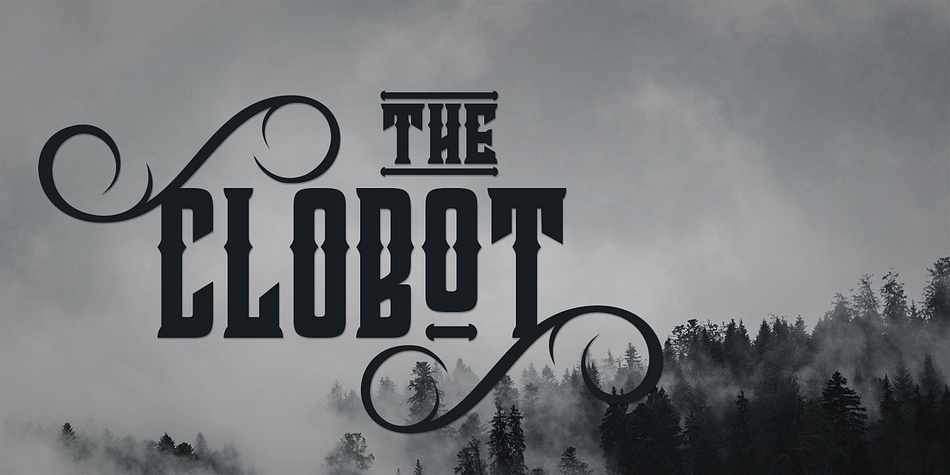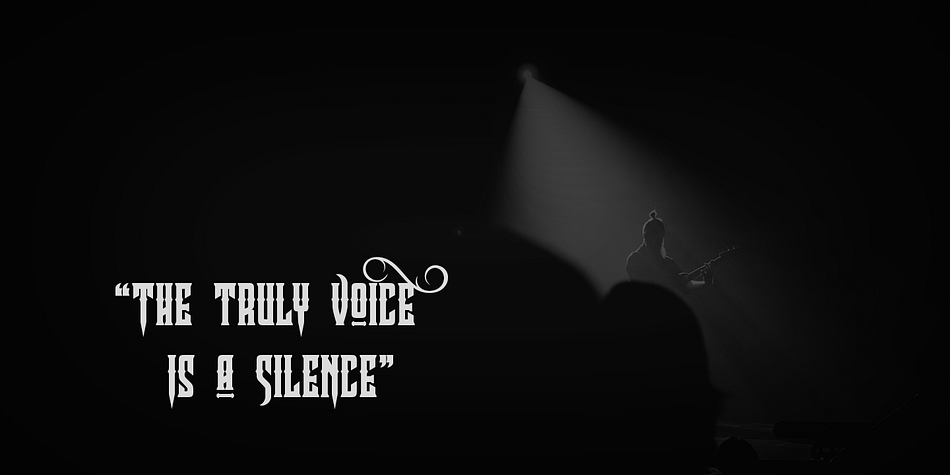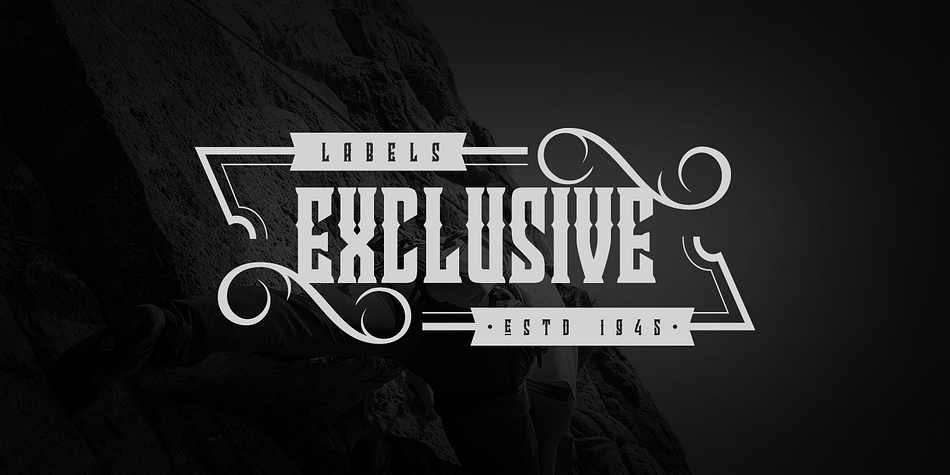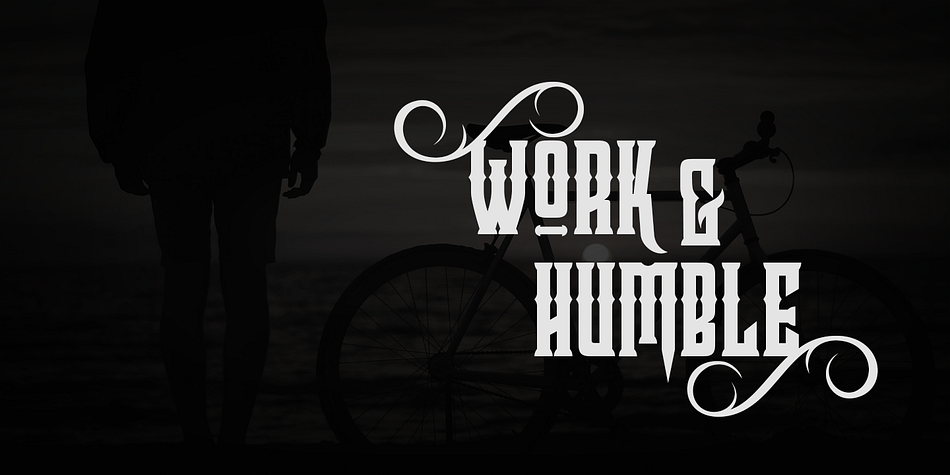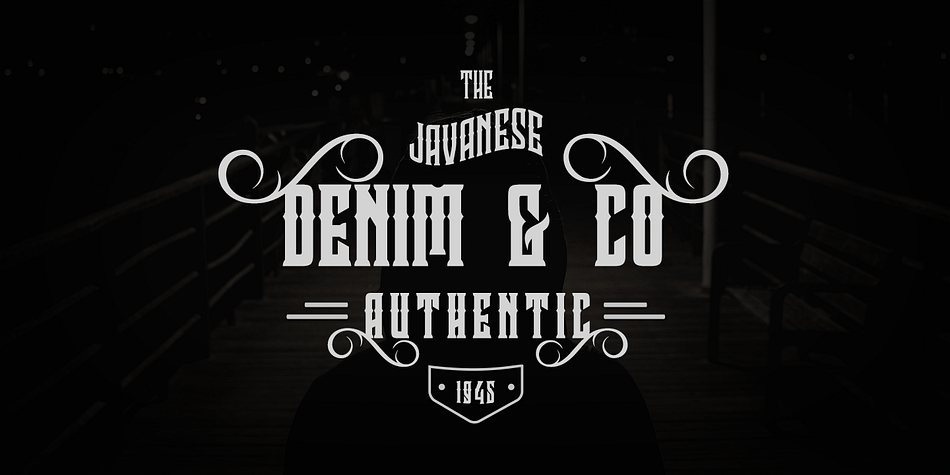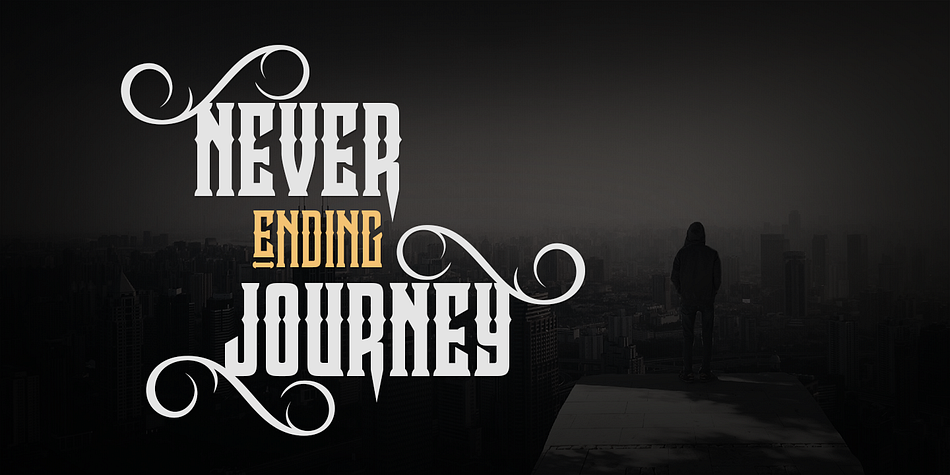
Clobot is a blackletter and display serif font family. This typeface has two styles and was published by Tamavocks.
Clobot is a tough and strong decorative display typeface.
It has many alternative glyphs and ligatures which make it very versatile font. It has multilingual support as well.
It provides flexibility to enhance your designs.
Clobot typeface is suitable font for creating beautiful things and many creative work.